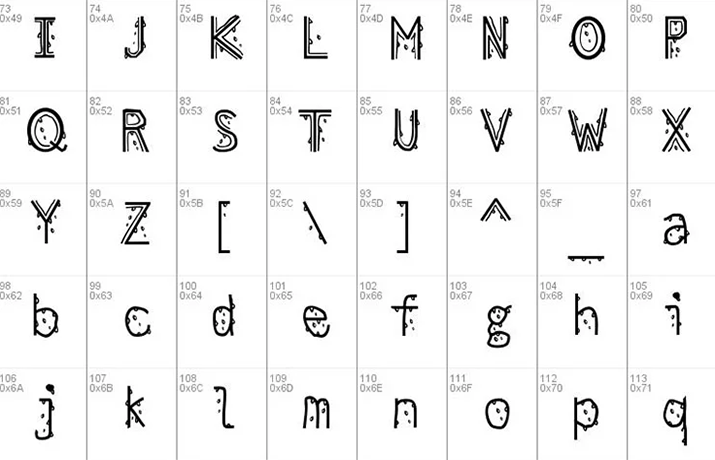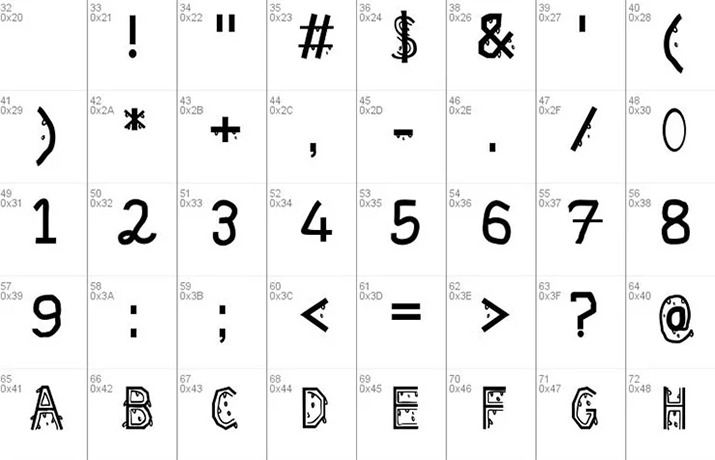
Melting Font is a fancy display typeface that comes with lots of eye-catching visual qualities. It was designed and published by Aaron Patrick Ryan.
This font has a unique personality in the letters that include distorted, dripping, and liquid-like letterforms. It could visually communicate in so many ways.
Its dripping and splatters aesthetic makes it an ideal choice for multiple purposes such as melting ice cream style, horror themes, summer vibes, posters, flyers, titles, fun & playful themes, and more.
• It’s a great option for social media banners, headers, game graphics, product designs, signs, movie posters, packages, comic books, banners, game titles, product designs, body text, vintage movie posters, flyers, headers, titles, branding marketing, social media banners, signs, titles, and many other impressive things because of its eerie feel and impressive versatility.
What is Melting Font?
Melting Font is a fancy display typeface that comes with lots of eye-catching visual qualities. It was designed and published by Aaron Patrick Ryan.